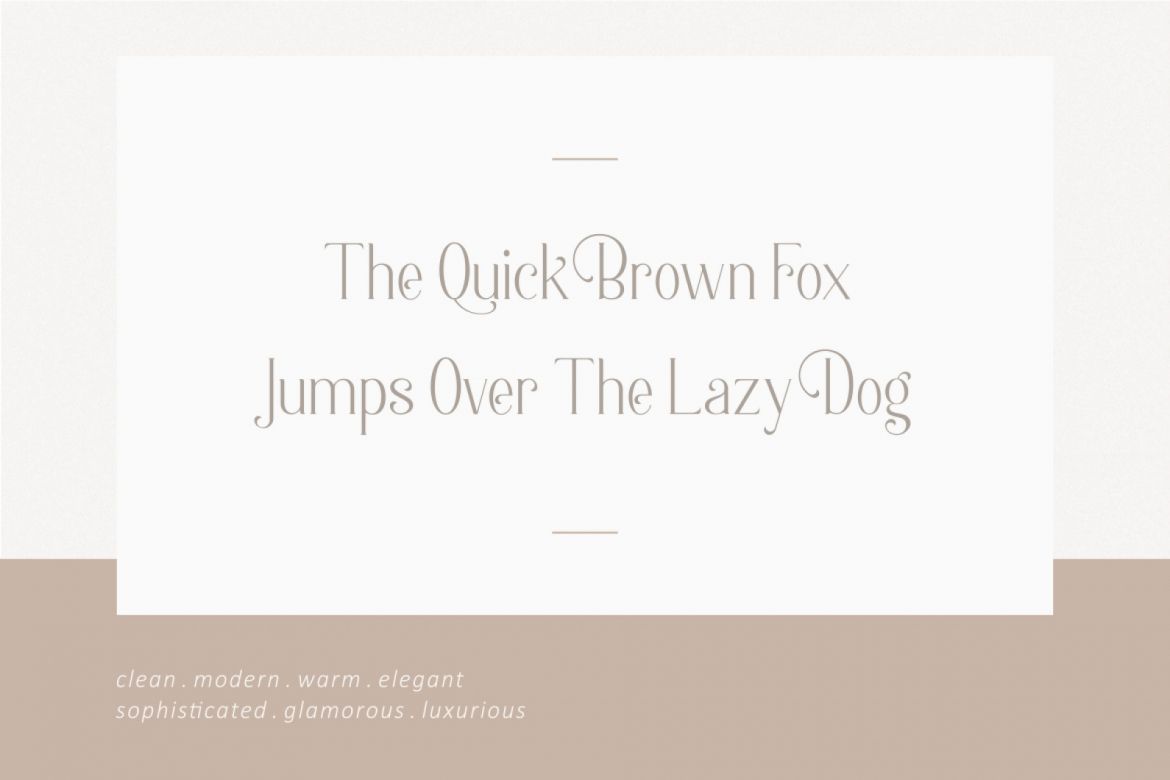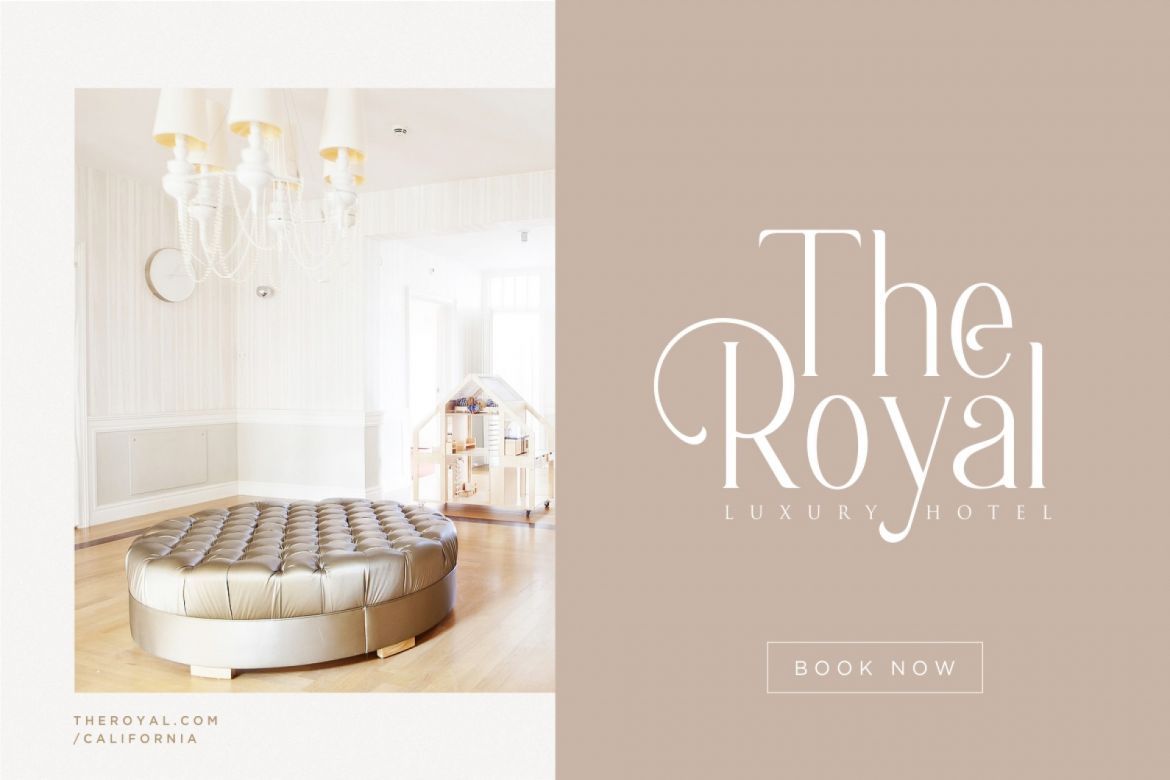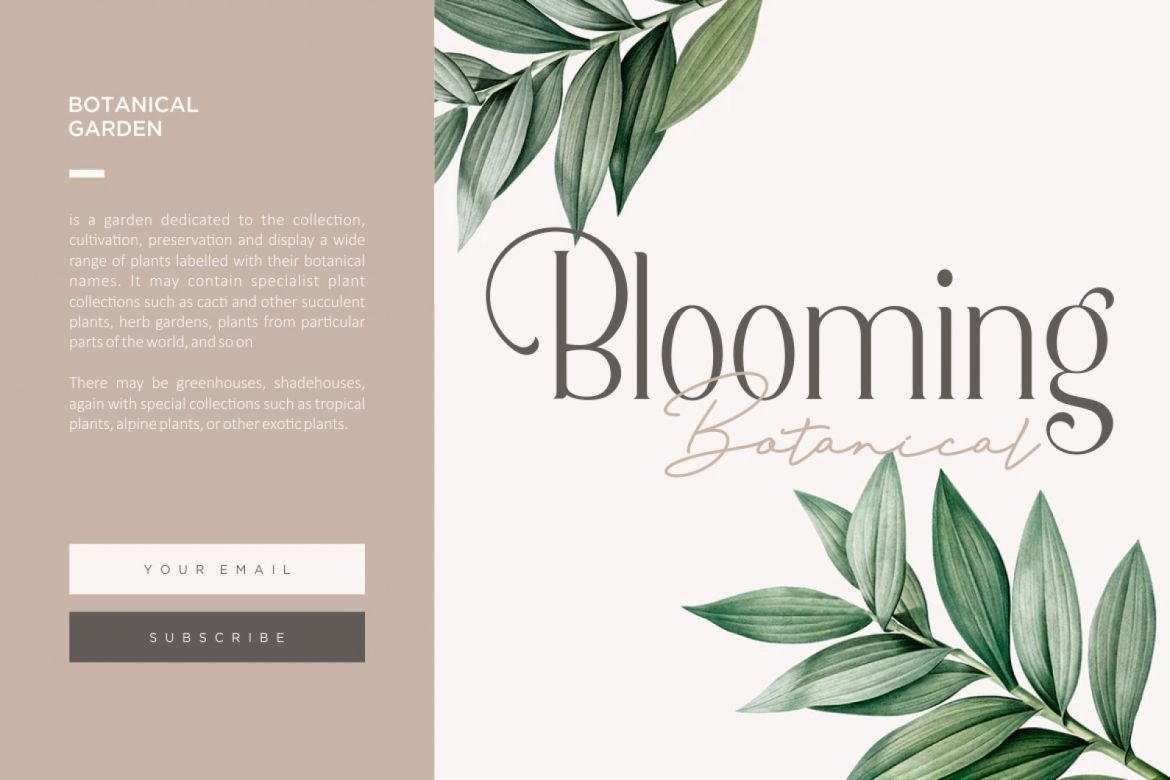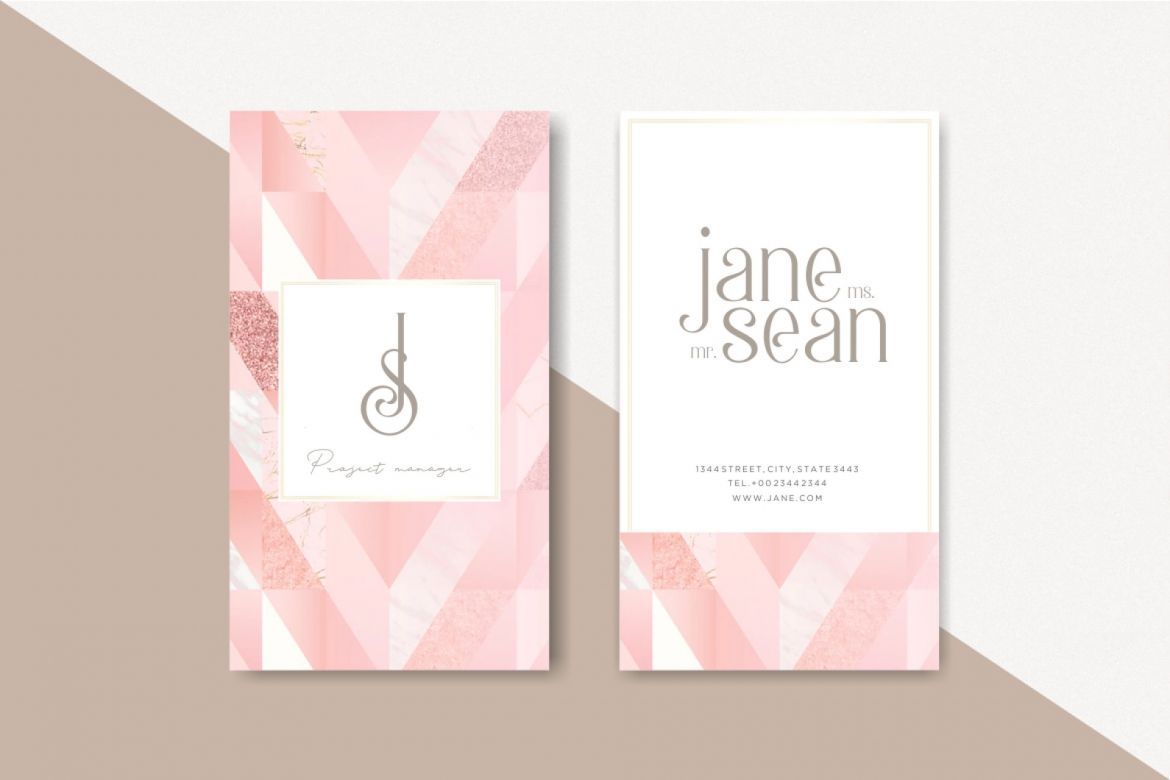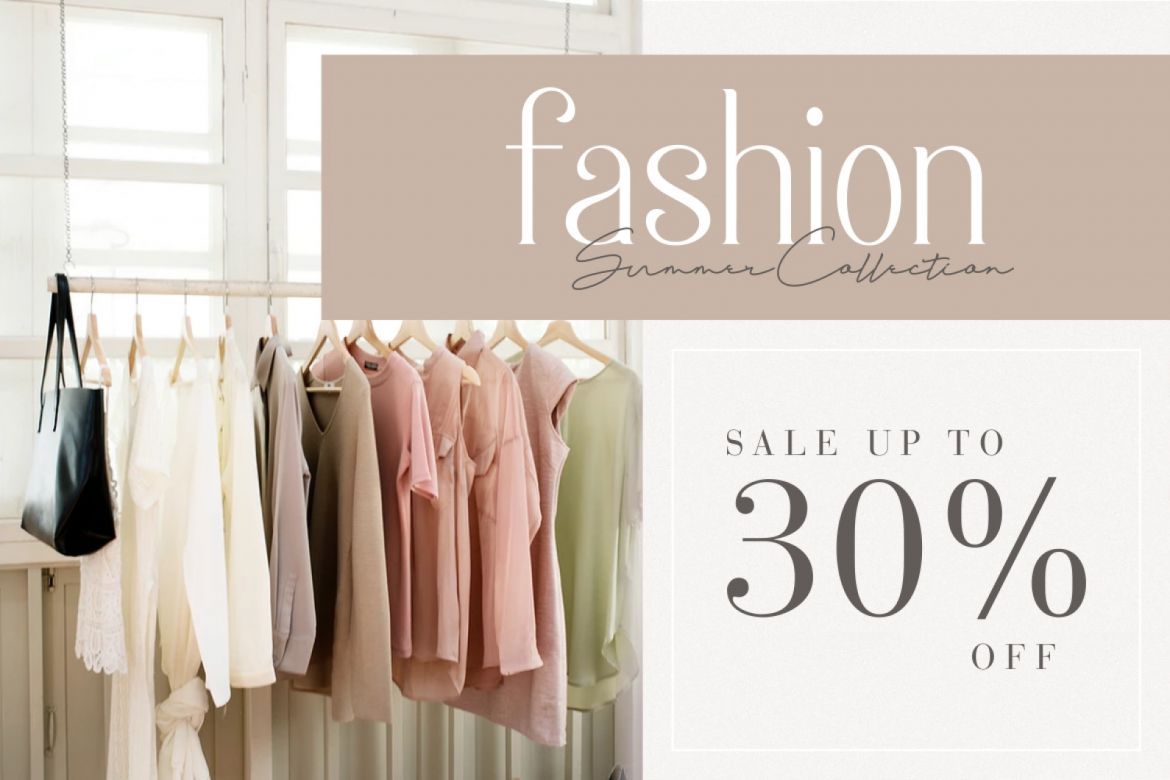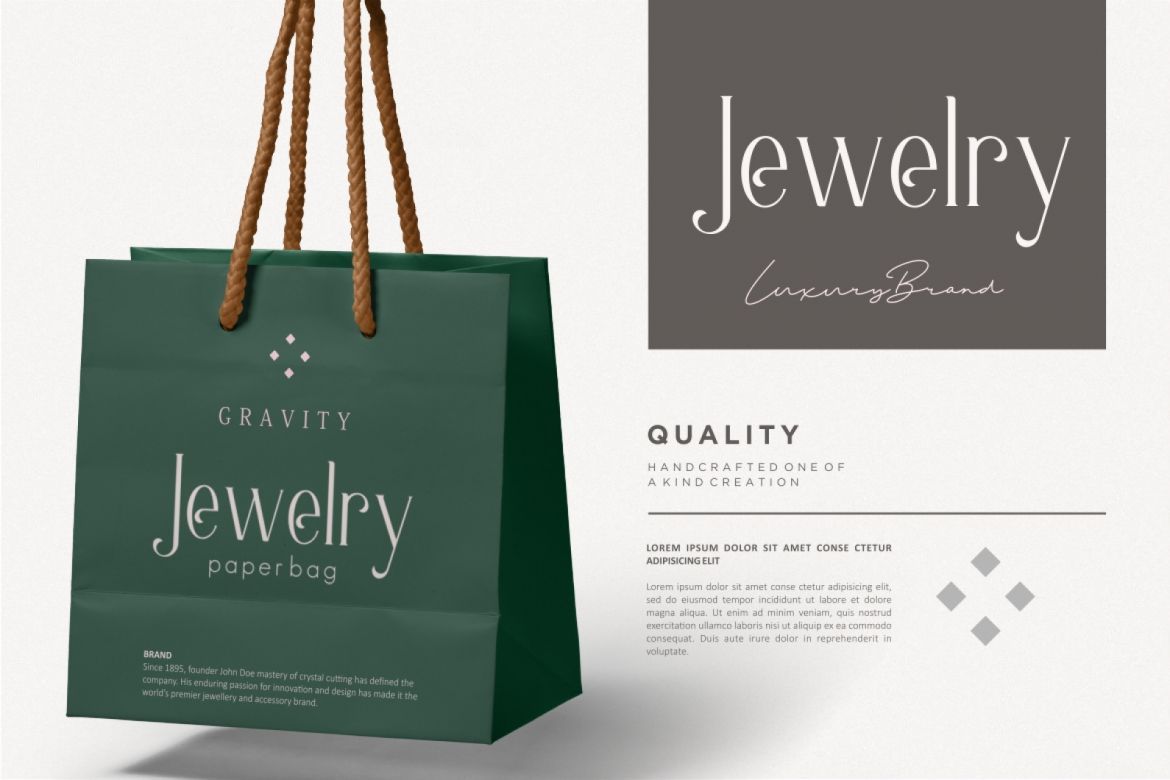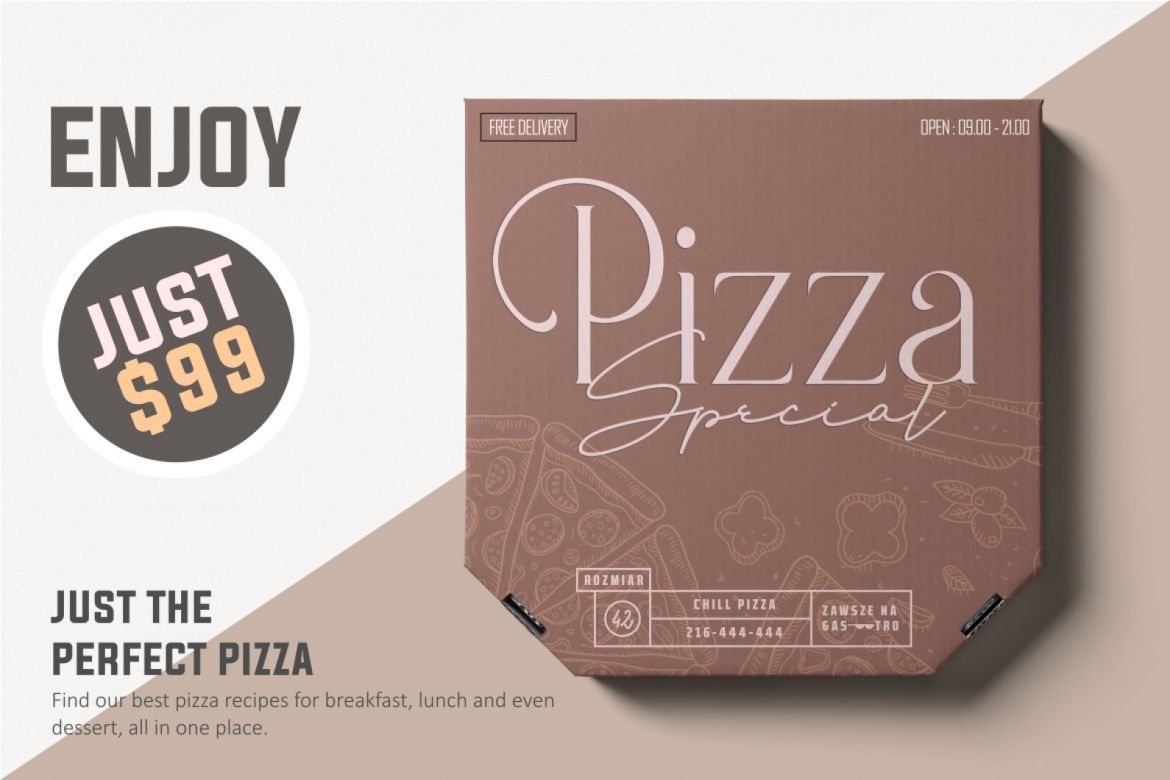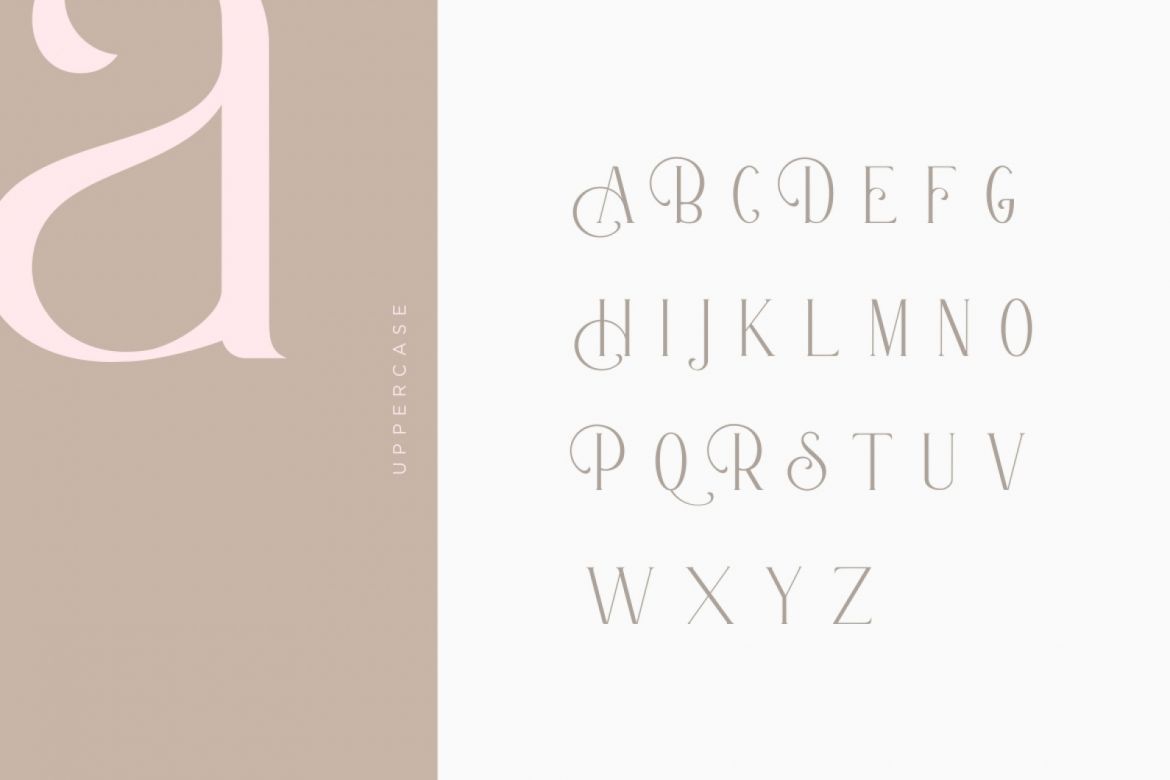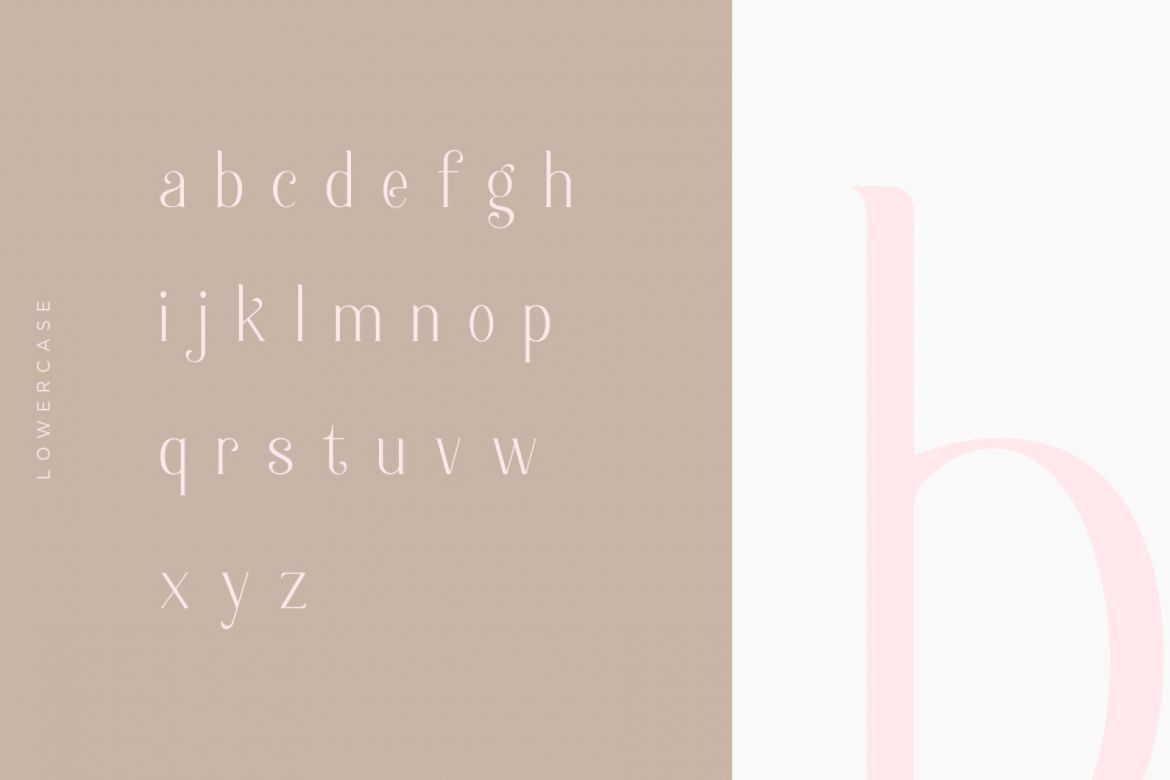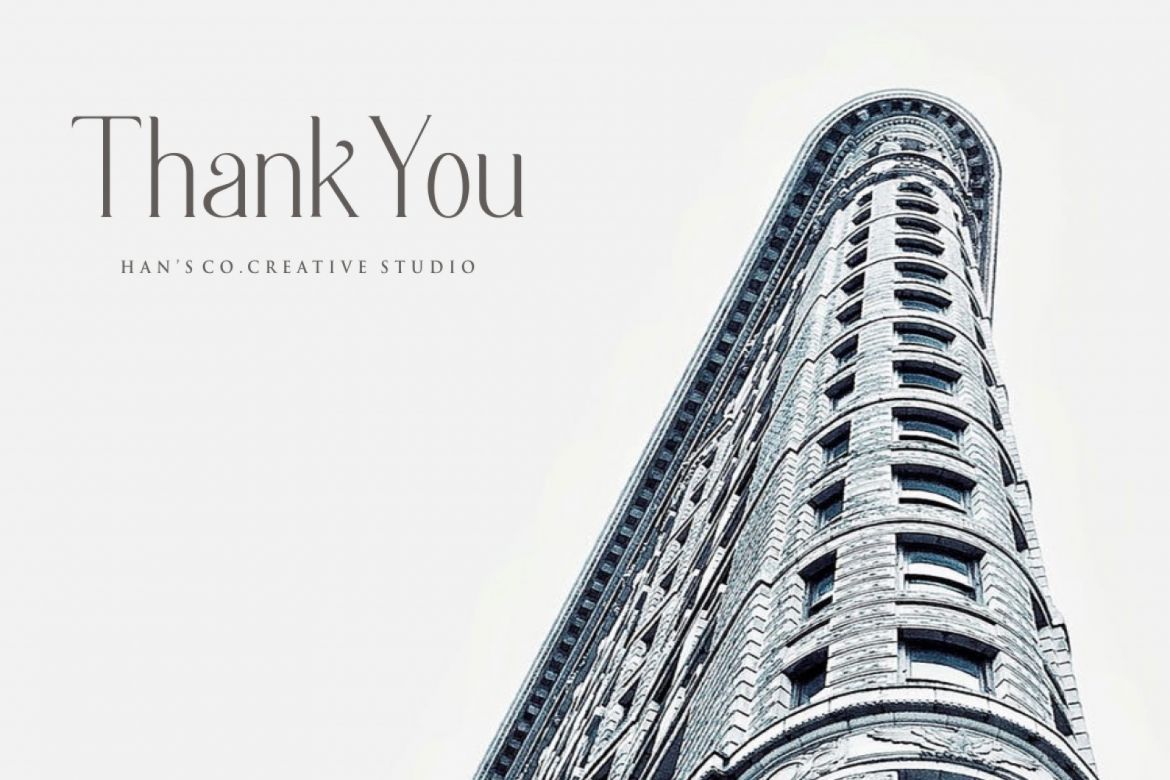
Berlin Font
BERLIN COLLECTION FONT — Berlin Collection Font is an elegant serif font designed with full and high accuracy to create a classy font style. It perfectly represents luxurious yet elegant in a modern and minimalist way.
Furthermore it comes with signature style font will make perfectly for elegant logo design, packaging or invitation cards.
• available with signature font
• perfectly for elegant logo design